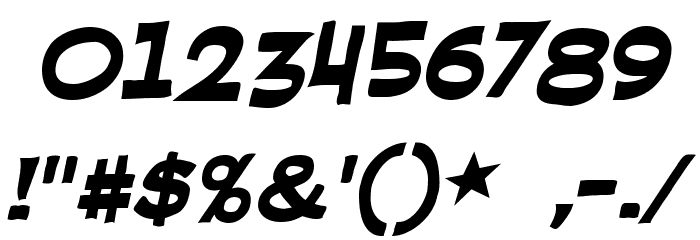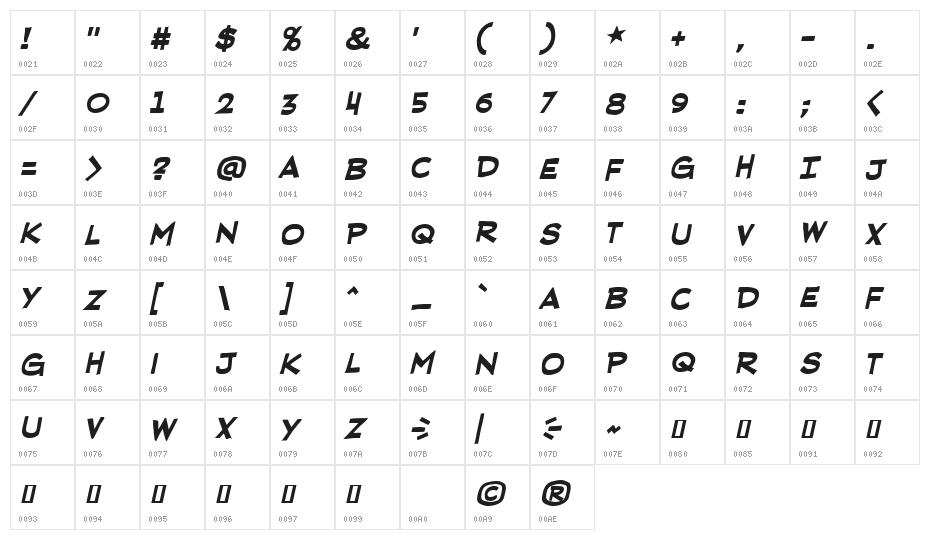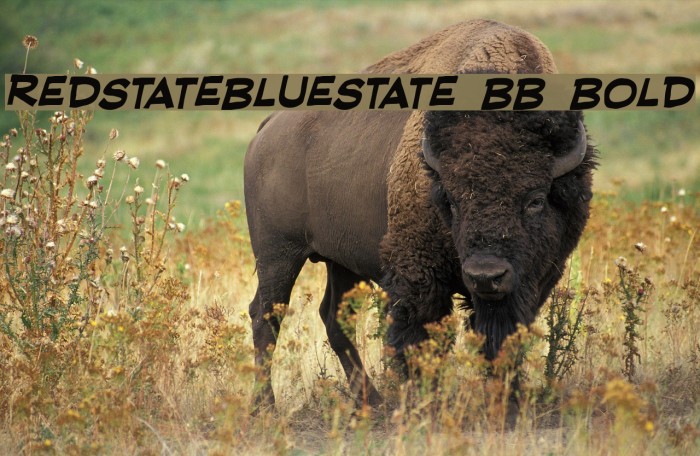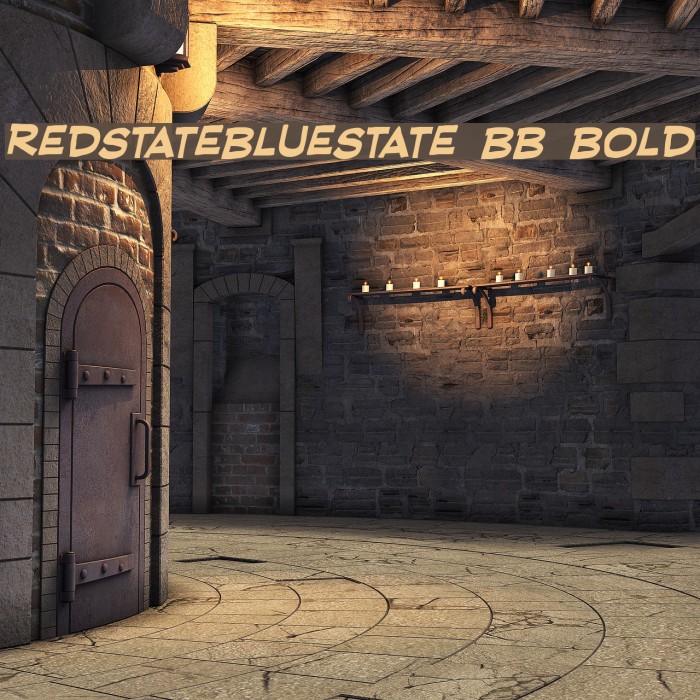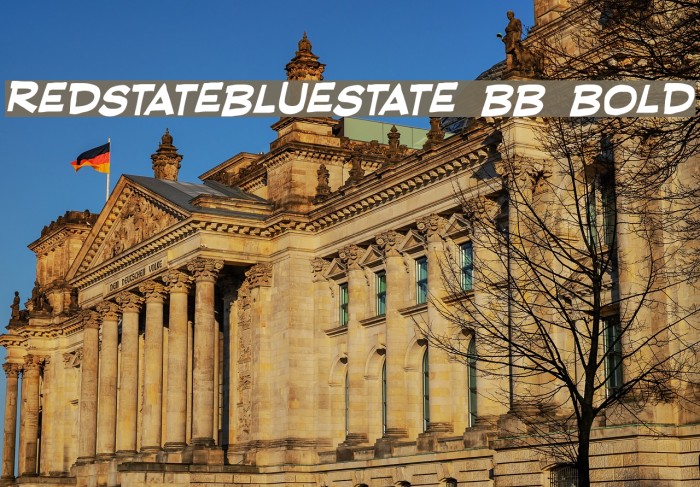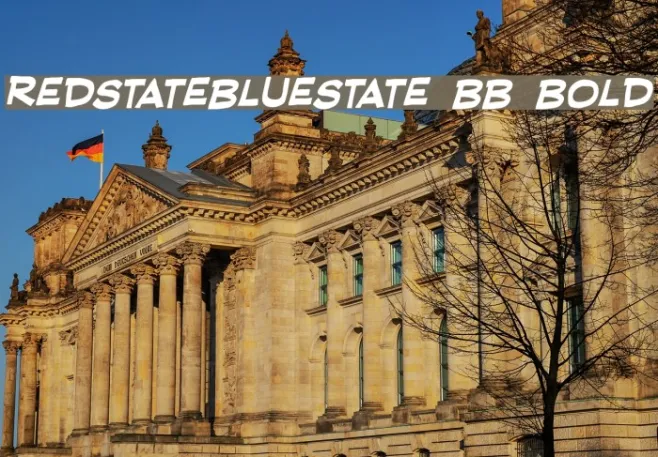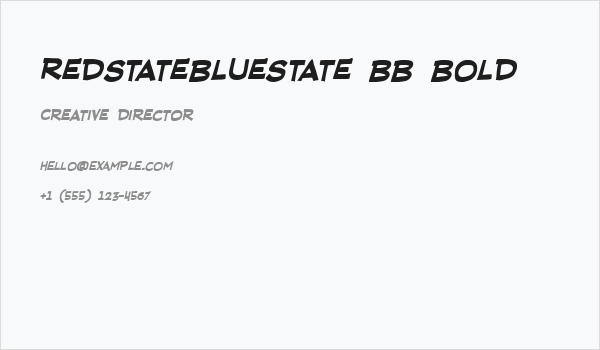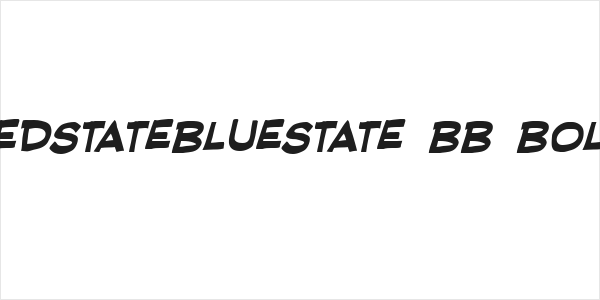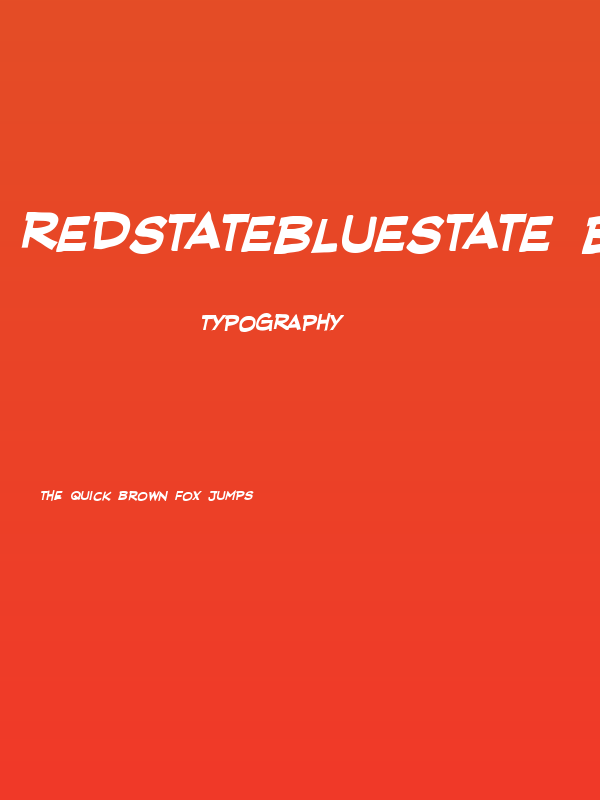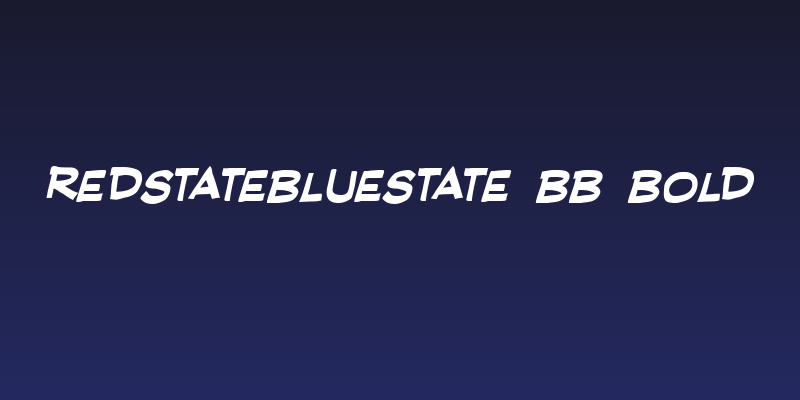
RedStateBlueState BB Bold Font
RedStateBlueState BB Bold Description
This font exhibits a bold and dynamic style with a strong presence. The characters are slightly slanted, giving a sense of movement and energy. The strokes are thick and consistent, contributing to its bold appearance. The uppercase and lowercase letters maintain a cohesive design, with rounded edges and a slight italic slant. The numerals are clear and bold, matching the overall style of the alphabet. Special characters are well-integrated, maintaining the font's energetic and bold characteristics. This font is suitable for projects that require a strong visual impact.
| Proposed Projects | Ideal for sports branding, dynamic posters, and energetic advertising campaigns. |